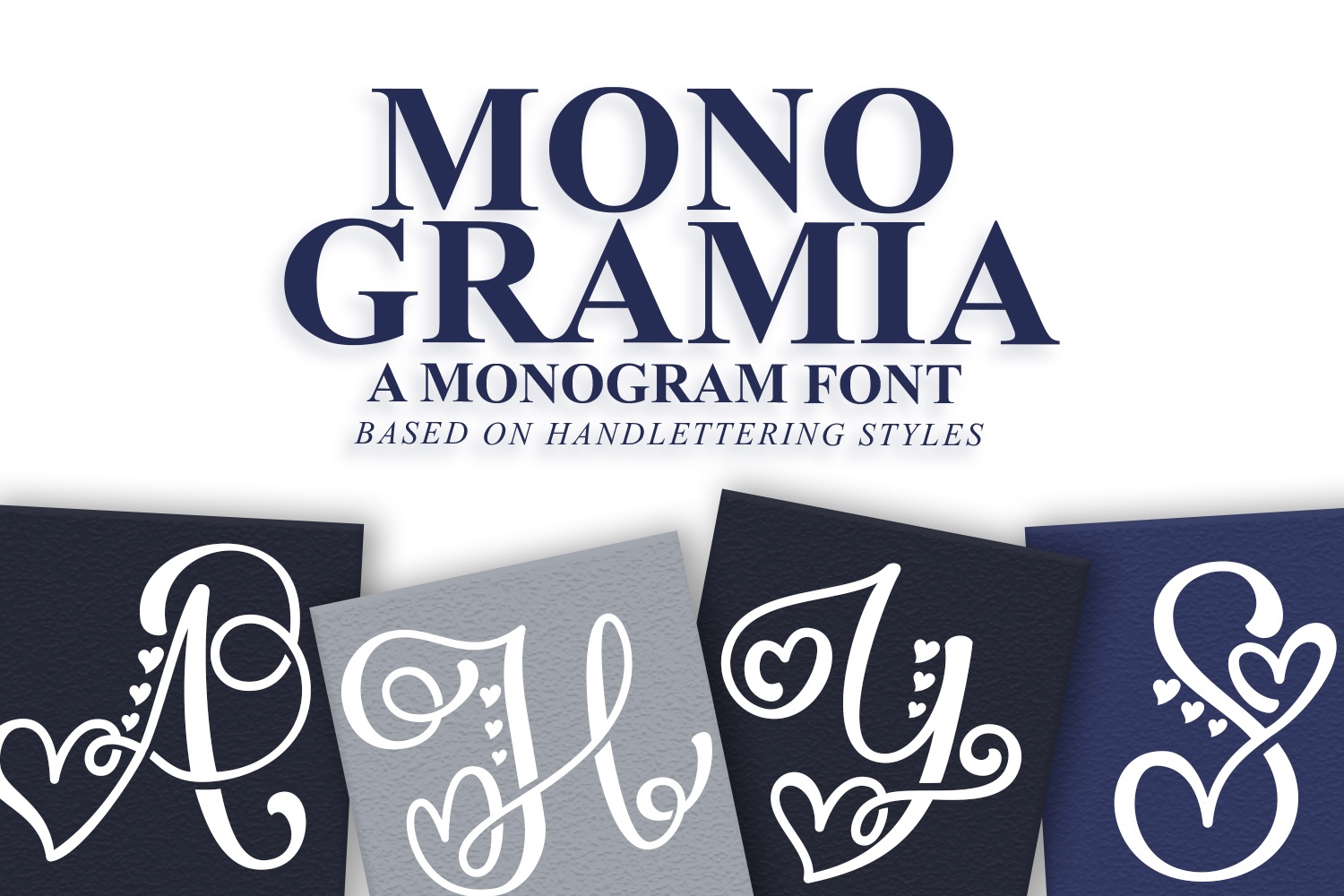
Monogramia Font
Monogramia Font is perfect for personalized stationery designs, elegant monogram creations, luxury wedding invitations, sophisticated personal branding, custom embroidery patterns, exclusive boutique logos, refined business letterheads, distinguished award certificates, personalized gift items, and authentic bespoke design communications.
What makes Monogramia Font so exciting is its exquisite embodiment of personalized elegance and monogram sophistication that captures the timeless tradition of custom lettering and the distinguished beauty of personalized design through meticulously crafted typography. This elegantly designed typeface features refined letterforms with monogram-inspired proportions and personalization-influenced character variations that immediately convey exclusivity, sophistication, and the transformative power of personalized expression. The font's bespoke construction and custom aesthetic create an instant sense of personalized luxury and exclusive elegance, making it ideal for projects that need to communicate custom craftsmanship, personalized sophistication, and the life-enhancing power of bespoke design to audiences seeking authentic personalization experiences and meaningful custom connections.
The Monogramia Font family typically includes multiple elegant weights and monogram styles, often featuring light through bold variations along with sophisticatedly crafted italic versions and personalization-optimized alternatives. Monogram font collections frequently offer extensive character sets including ornamental capitals, decorative ligatures, and custom elements that enhance the authentic personalization aesthetic and provide designers with comprehensive tools for creating genuinely bespoke and elegantly personalized communications.
The personalized nature of Monogramia Font makes it particularly effective for targeting demographics that value custom elegance and personalized sophistication in their luxury and lifestyle choices. Luxury marketers and bespoke design specialists will find this font especially valuable for materials that must establish immediate personalization credibility and connect with audiences seeking authentic custom experiences and meaningful bespoke engagement.
What sets Monogramia Font apart is its ability to convey personalized luxury while maintaining the versatility necessary for effective custom communication and bespoke brand expression. This balanced characteristic makes it suitable for both exclusive personalization applications and sophisticated custom contexts where projecting bespoke quality and maintaining elegant accessibility must work together harmoniously.
Professional designers recognize that Monogramia Font brings invaluable personalization credibility to projects across industries including luxury customization, bespoke services, personalized gifts, and exclusive design consulting. Its monogram character and elegant appeal make it essential for organizations whose mission centers on delivering personalized excellence, promoting custom sophistication, and creating meaningful connections between bespoke craftsmanship and personalized luxury experiences.
The systematically crafted personalization authenticity of Monogramia Font ensures consistent custom messaging across all bespoke-focused communication applications while honoring the fundamental principles of personalized elegance and exclusive craftsmanship in contemporary typography.